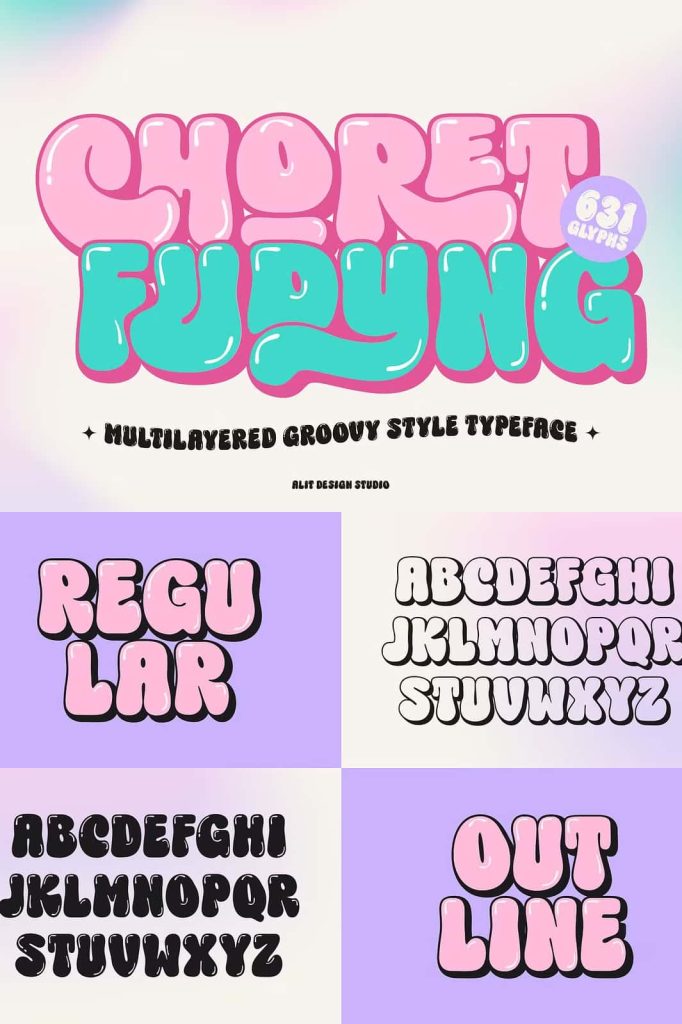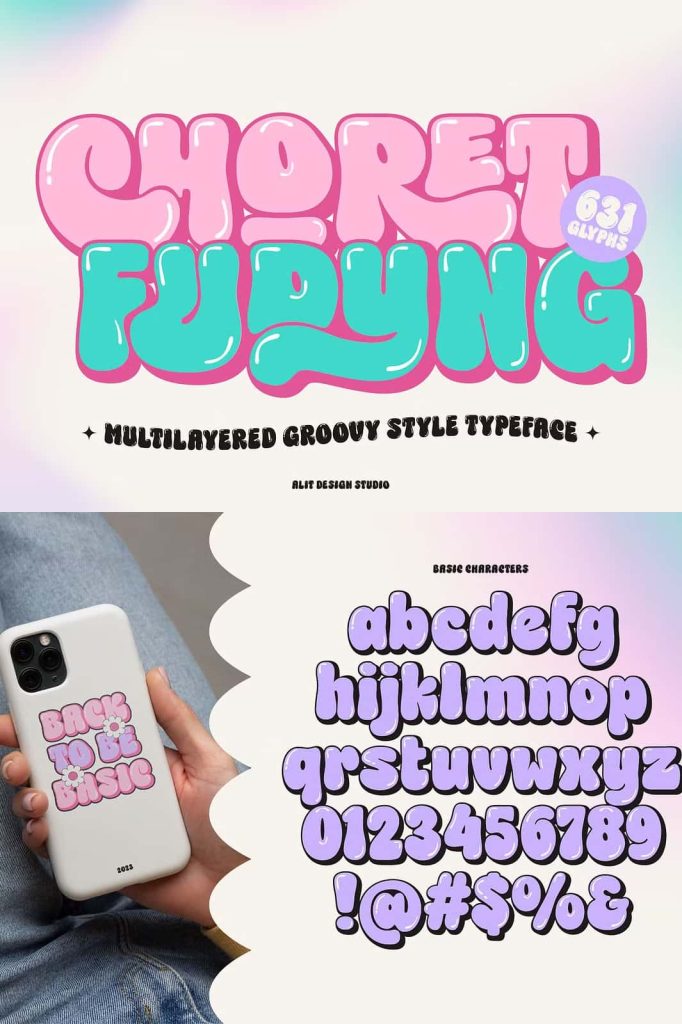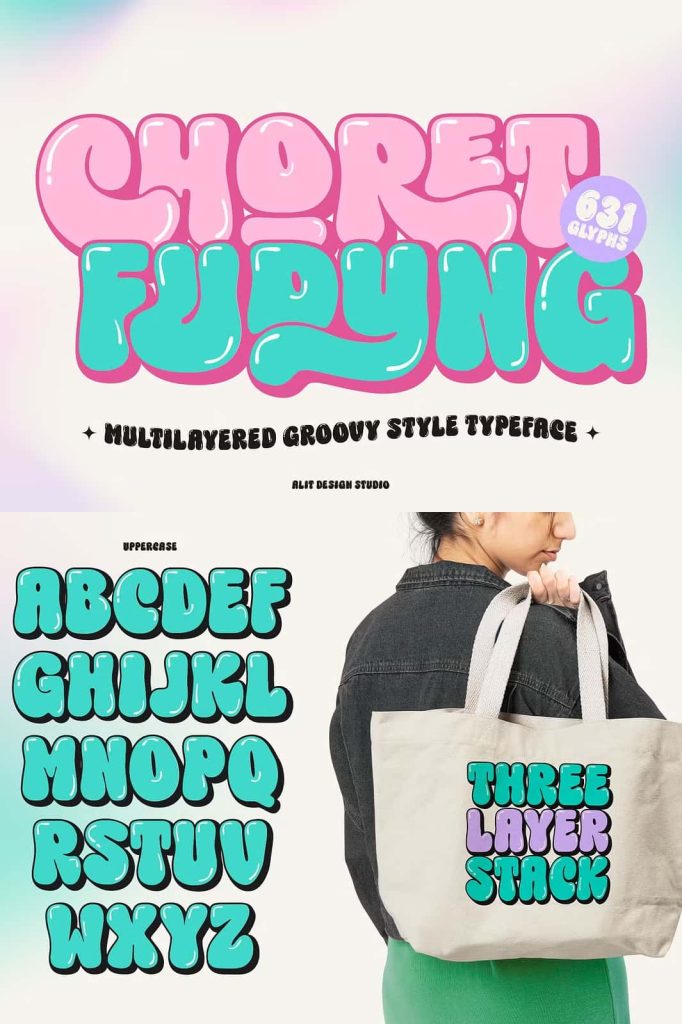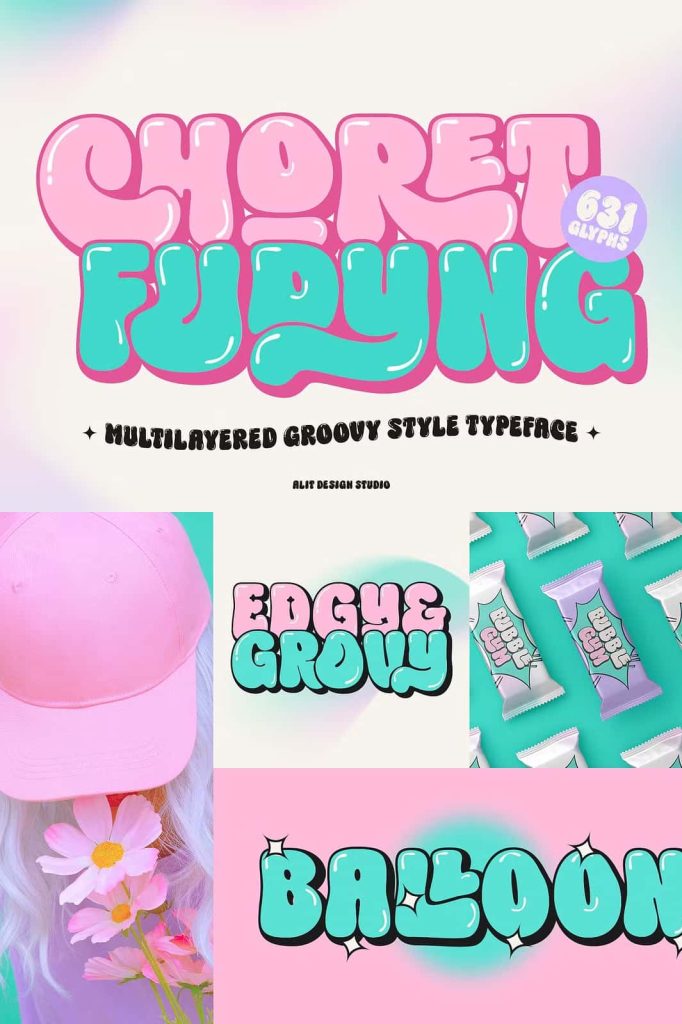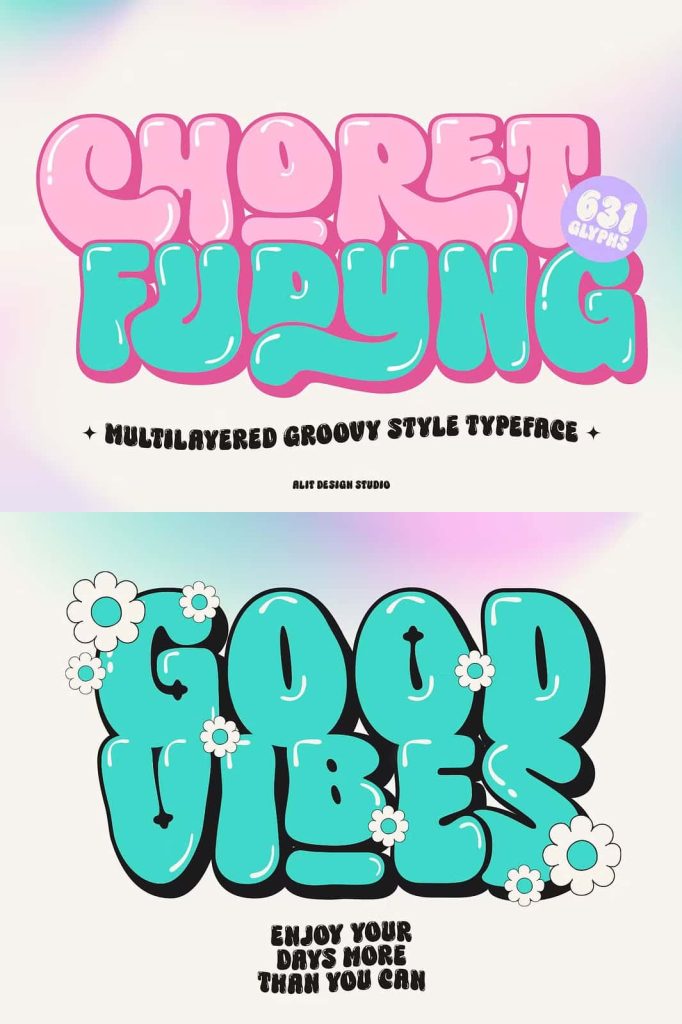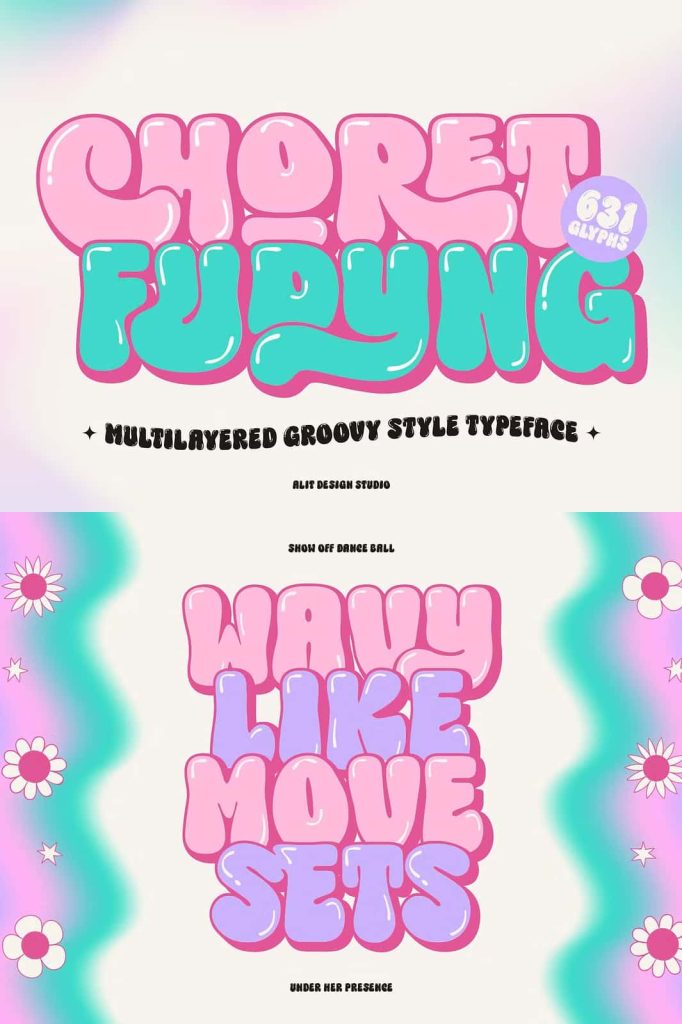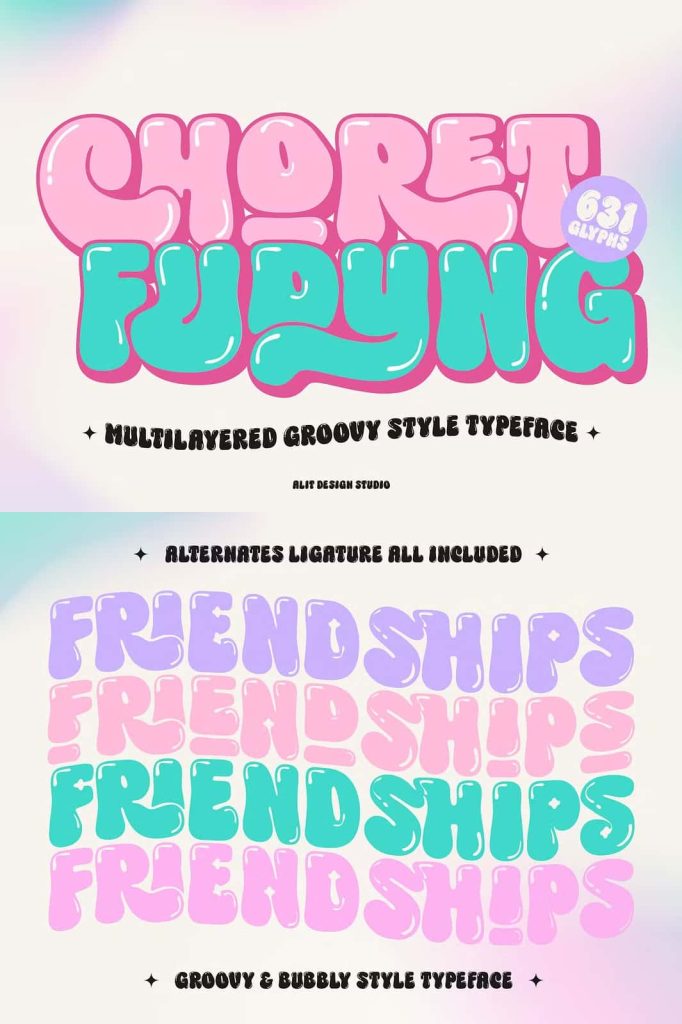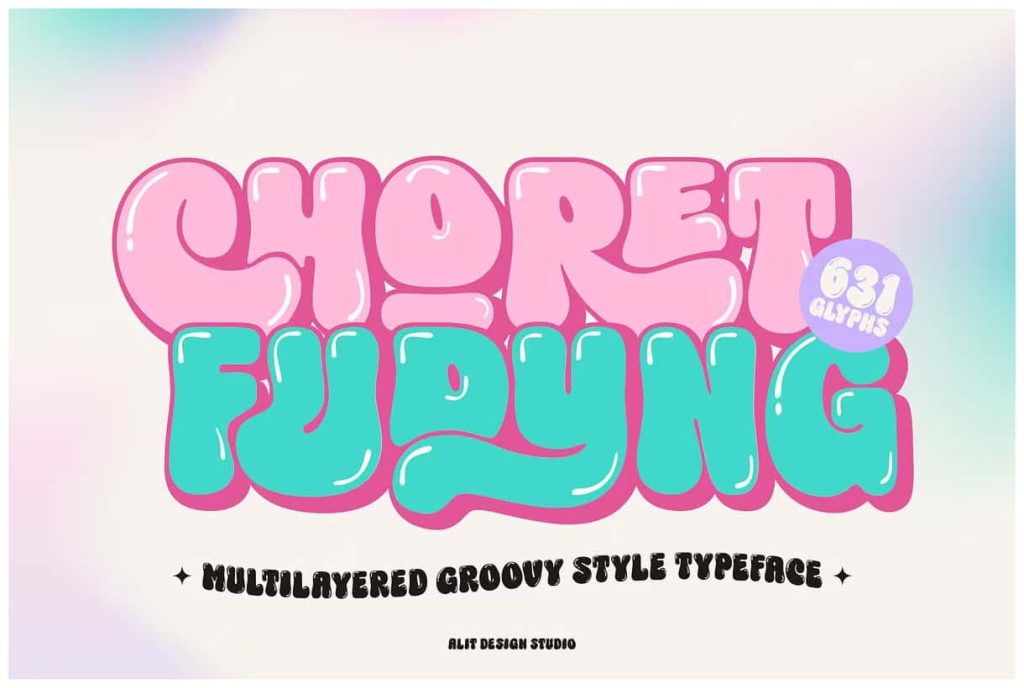
Choret Fudyng Bubble TypefaceleastedApril 13, 2025Fonts Introducing Choret Fudyng, a font with a captivating Bubble style that will elevate your designs to new heights. Download